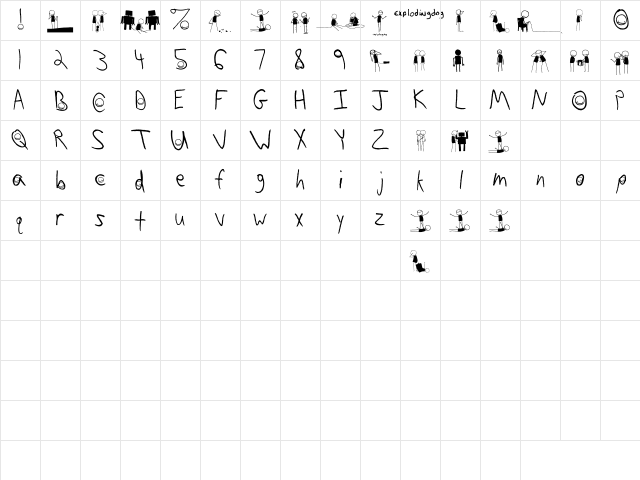
Sam Brown is My Hero Regular Free Font
Sam Brown is My Hero Regular
Design Context for Sam Brown is My Hero
Sam Brown is My Hero is a composed and adaptable typeface that performs quietly and consistently across a wide range of design contexts.